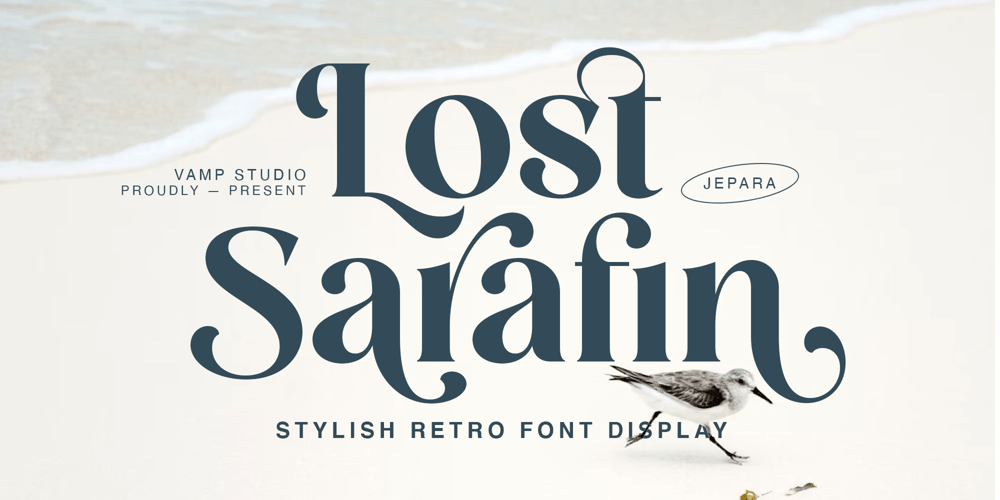
Lost Sarafin Font Family was designed by Irfan syah and published by Vampstudio. Lost Sarafin contains 1 styles and family package options. Lost Sarafin Font: A modern take on retro charm. This display serif font is inspired by the timeless elegance of retro styles, blending nostalgia with contemporary design. Perfect for infusing your projects with a touch of sophistication and character. Explore the fusion of modern aesthetics and retro vibes, as each letter brings a unique balance of style and versatility